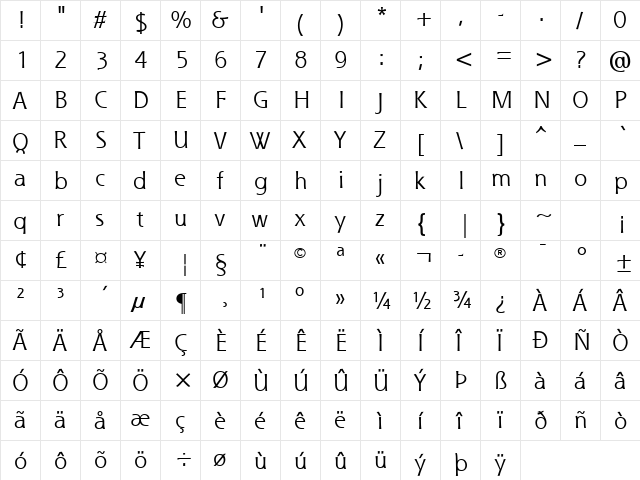
Misty Mountain 1 Regular
Design Context for Misty Mountain 1 Typeface
Misty Mountain 1 takes a measured approach to typography — its balanced proportions and neutral character make it a reliable workhorse for both digital and print work.